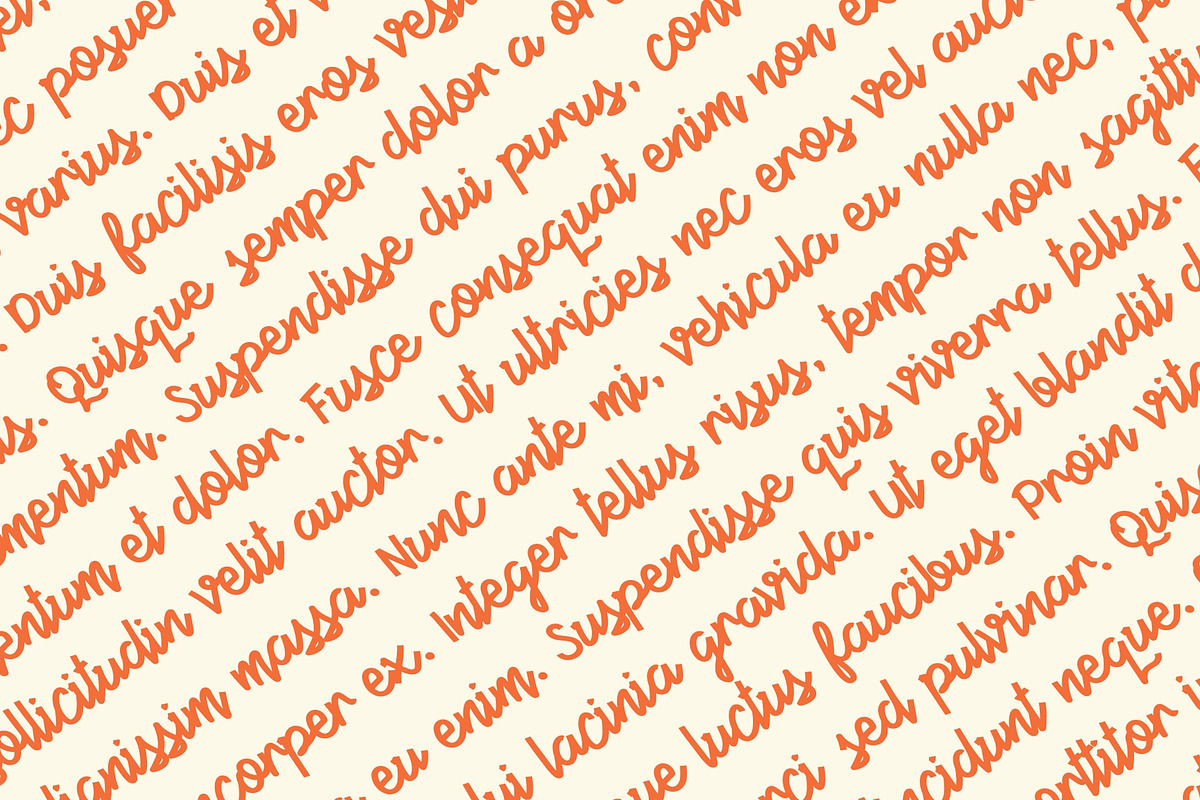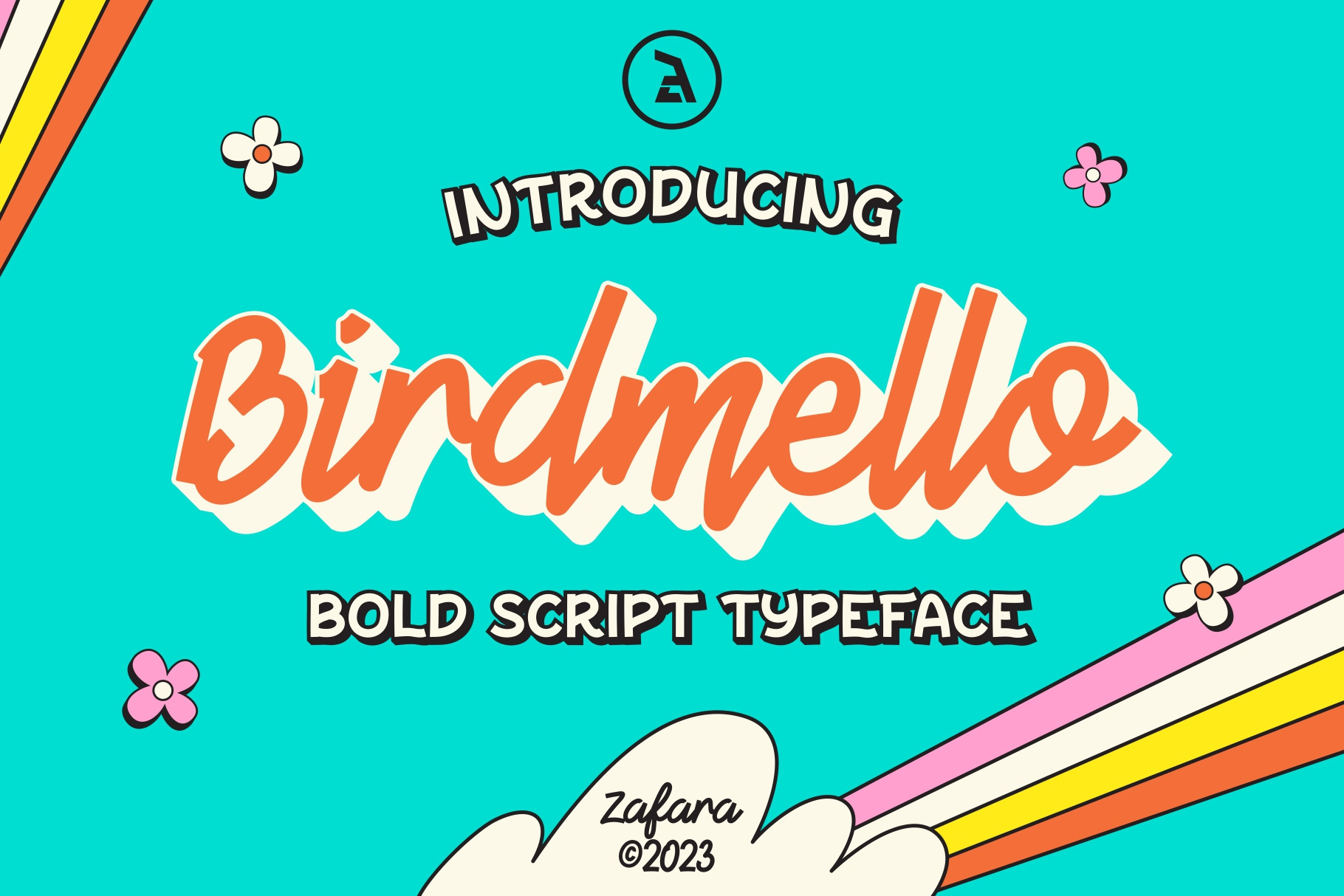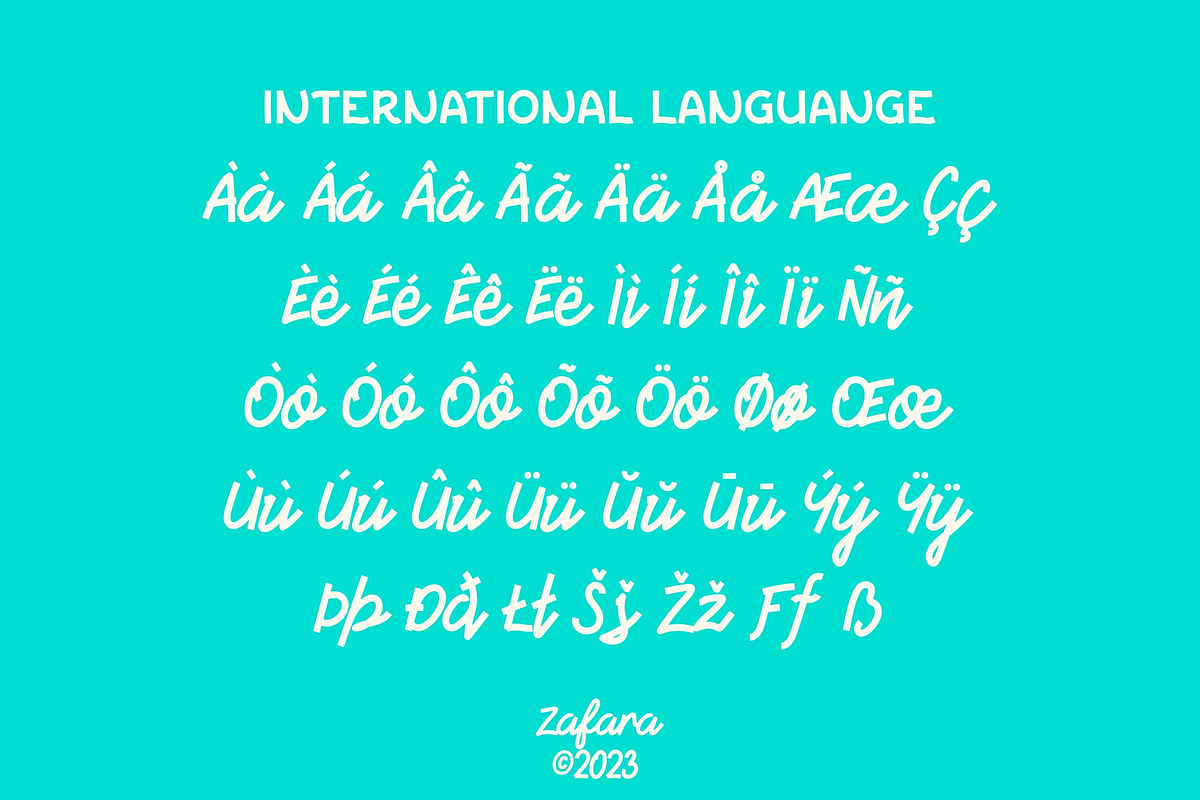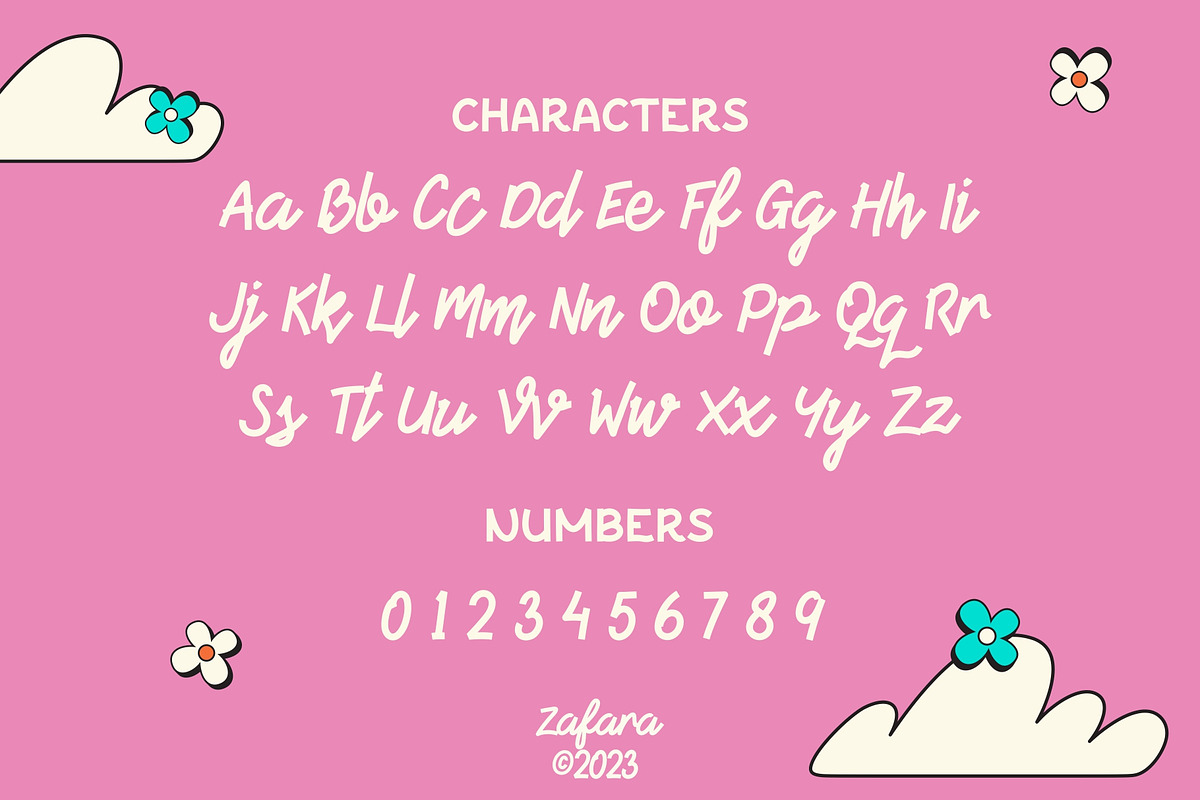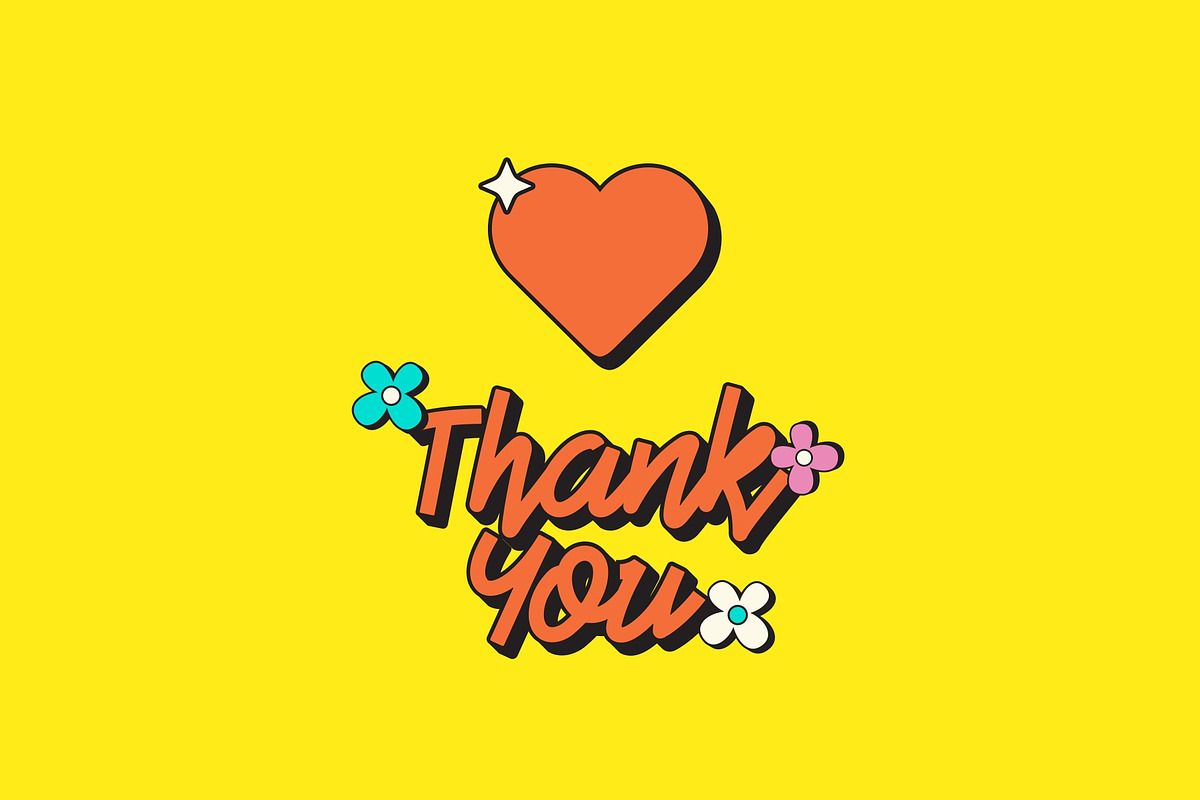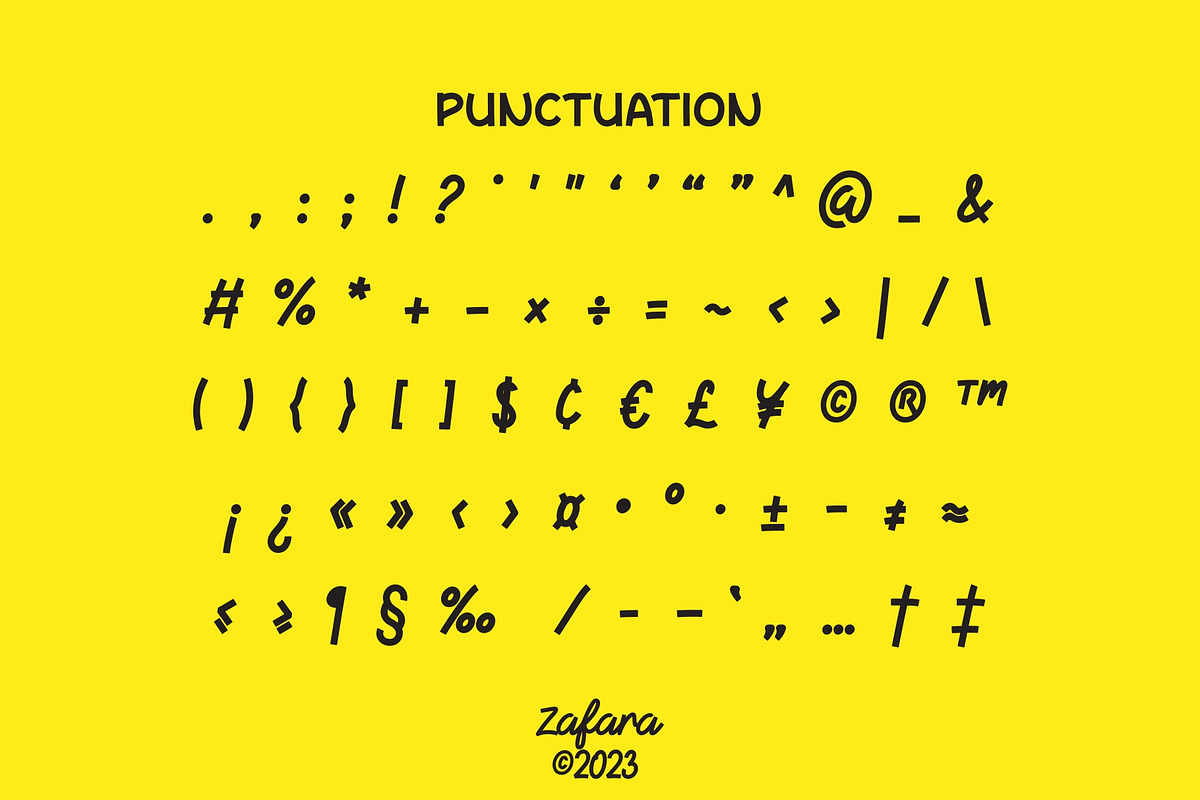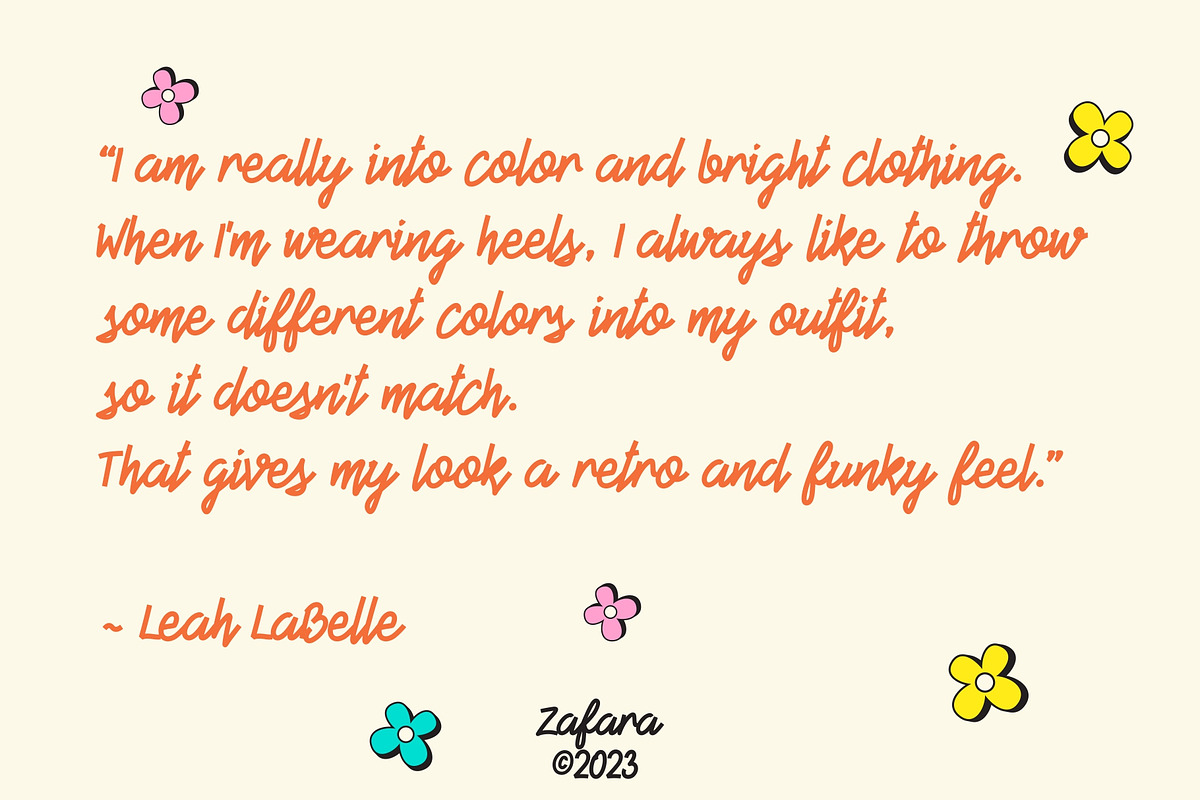
Birdmello - Bold Script Typeface
Birdmello is a font with a bold script look. This font is perfect for greeting cards, logotypes, branding, posters, and much more. However, basically it can be used with a wider range of themes depending on your design needs.
The details:
- 211 Glyphs: Uppercase, Lowercase, Numbers, Punctuation & Language Support
- Language Support: Danish, English, French, German, Irish, Italian, Portuguese, Spanish, Swedish, & Swiss German